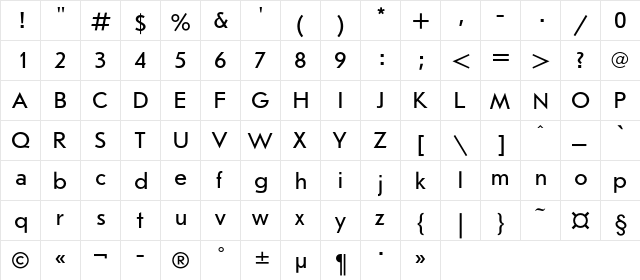
JournalSansC Regular
Design Context for JournalSansC Typeface
JournalSansC is a composed and adaptable typeface that performs quietly and consistently across a wide range of design contexts.